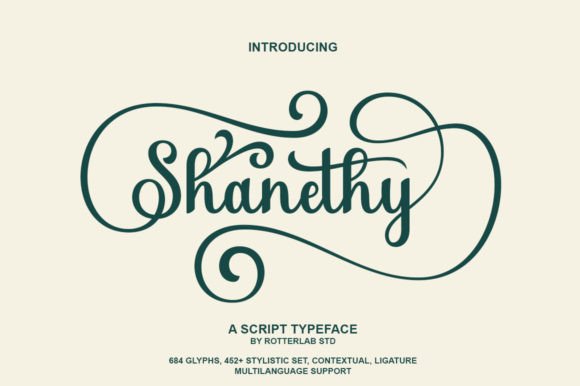
Embark on a Typographic Odyssey with Shanethy: An Enchanting Handwritten Font for Tattoos
In the realm of body art, script tattoos hold a timeless allure, capturing profound emotions and personal narratives with their elegant strokes and free-flowing forms. Introducing Shanethy, a meticulously crafted handwritten font that elevates the art of tattoo script to new heights.
Shanethy's captivating charm lies in its harmonious blend of classic calligraphy and modern flair, creating an aesthetic that is both timeless and captivating. Each letter dances across the page with an effortless grace, reminiscent of a skilled calligrapher's hand guiding ink across parchment.
With Shanethy as your creative companion, let your imagination soar as you explore boundless possibilities. Whether you seek to immortalize a cherished memory, profess undying love, or simply adorn your body with a striking design, Shanethy's versatility knows no bounds.
Shanethy: A Font Tailored for Tattoo Excellence
- Capture the Essence of Individuality: Express your unique style and personality through Shanethy's expressive letterforms, transforming your tattoo into a captivating storyteller.
- Experience Unparalleled Flexibility: From delicate cursive to bold, statement-making strokes, Shanethy effortlessly adapts to your creative vision, ensuring a result that resonates with your artistic soul.
- Explore Boundless Applications: Whether it's a quote that speaks to your heart, a symbol that holds deep significance, or an intricate design that reflects your passions, Shanethy is your versatile ally in self-expression.
- Delight in Shanethy's Unrivaled Quality: Each character has been meticulously crafted to perfection, ensuring crisp, clean lines and flawless execution, resulting in a tattoo that retains its beauty for a lifetime.